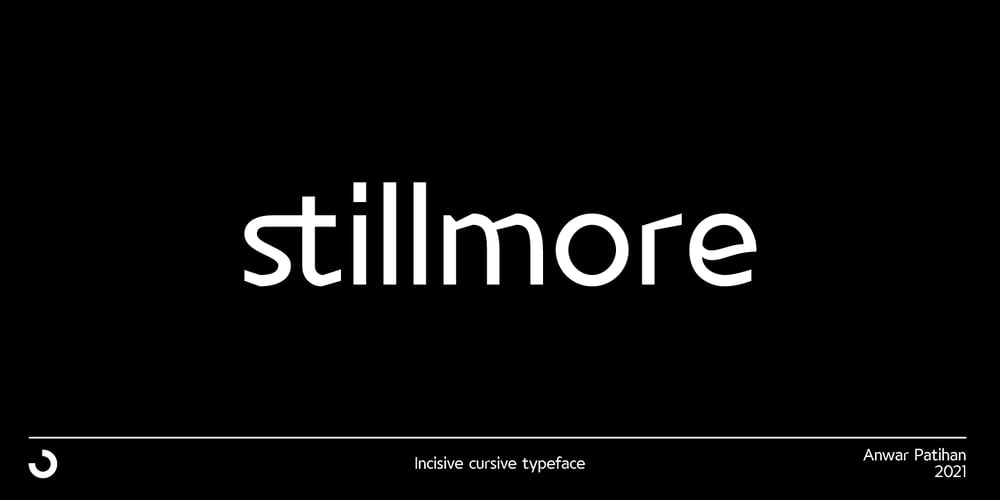
Stillmore Font Family was designed by Anwar Patihan and published by Jehoo Creative. Stillmore contains 6 styles and family package options. Stillmore is inspired by a modern lifestyle that expresses character with ease. Then a font with two contrasting styles was created, Stillmore basic and cursive, symbolizing that each person has different character desires. Has 3 weights Regular, Bold, Black with unique details in each glyph that make them stand out. This font is perfect for making a stunning impact on designs of many contemporary types. Has more than 430 glyphs in individual styles.Supports many languages including cryllic.